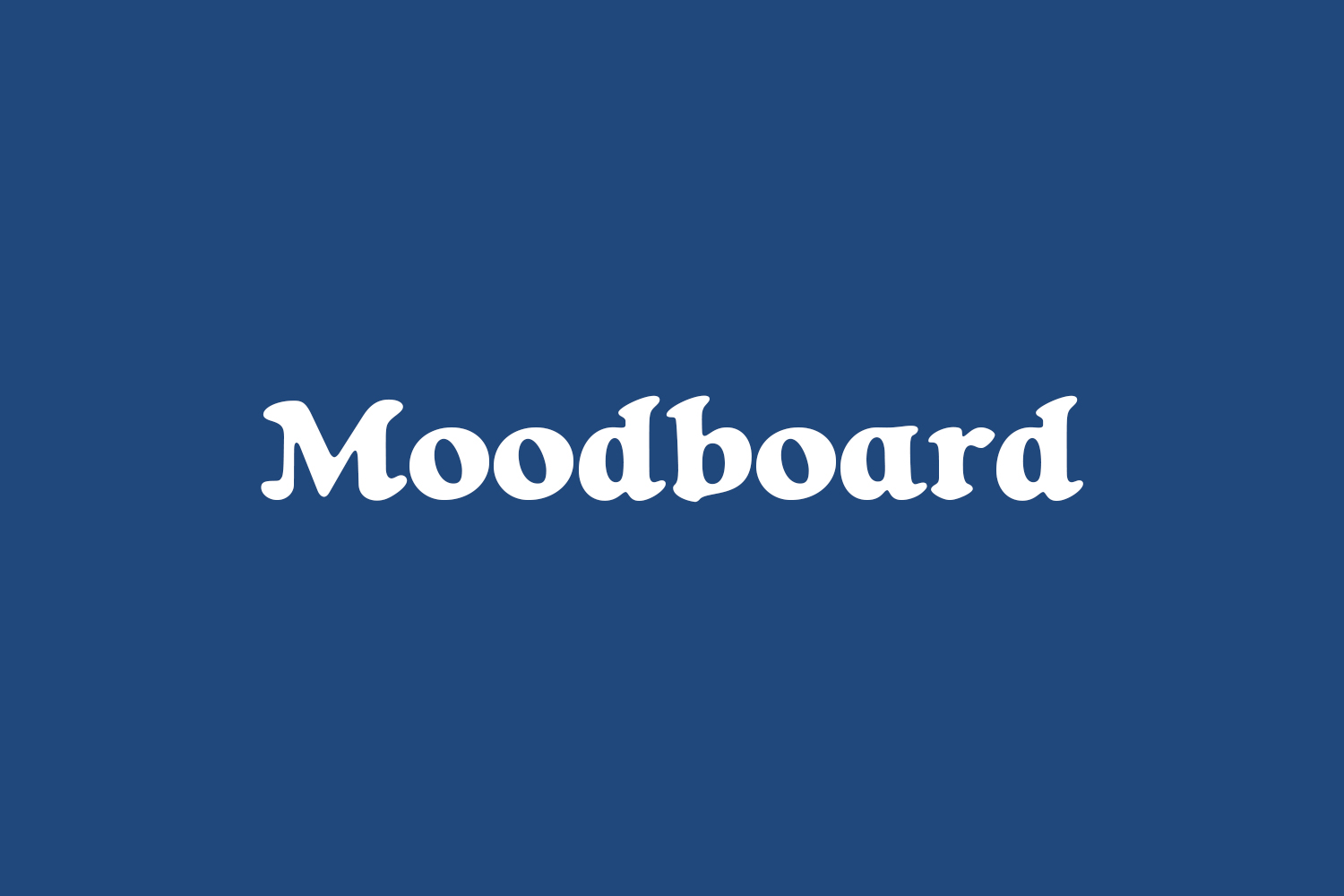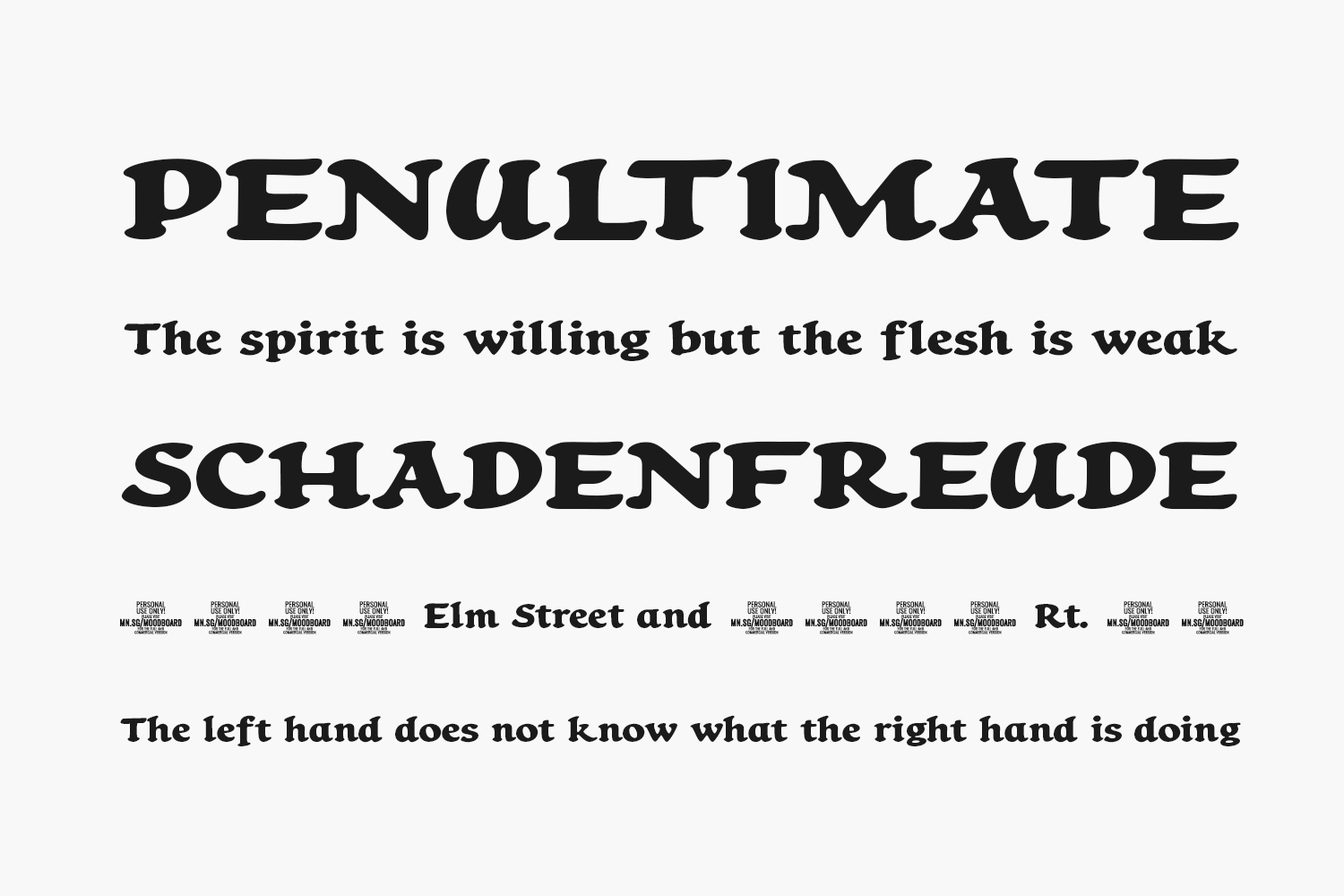
Introducing the Fancy Retro Moodboard Free Font, a typeface that transports you back in time to an era of glamour and style. With its elegant curves and vintage vibe, this font is perfect for creating stunning designs that evoke a sense of nostalgia and sophistication.
The Fancy Retro Moodboard Free Font is inspired by the golden age of advertising and design, where bold graphics and catchy slogans ruled the advertising world. This font captures the essence of that era with its sleek lines and intricate details, making it perfect for creating stunning typography that demands attention.
Whether you’re creating a retro-inspired logo or designing a poster for an event, the Fancy Retro Moodboard Free Font is the perfect choice. Its unique blend of vintage style and modern flair will make your designs stand out from the crowd and leave a lasting impression on your audience.